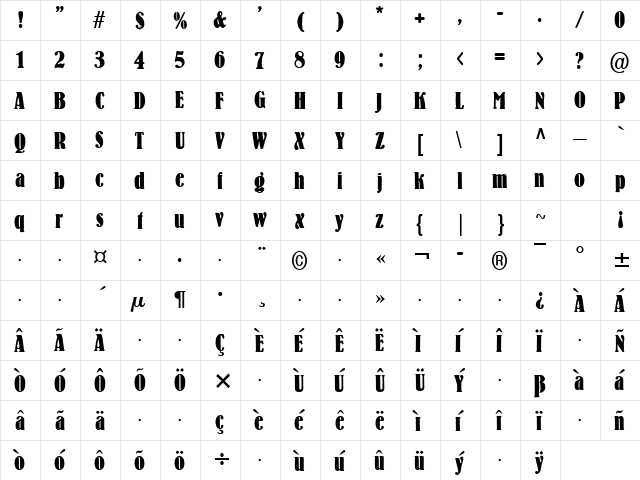
Legend Regular
Design Context for Legend Typeface
Legend is a composed and adaptable typeface that performs quietly and consistently across a wide range of design contexts.